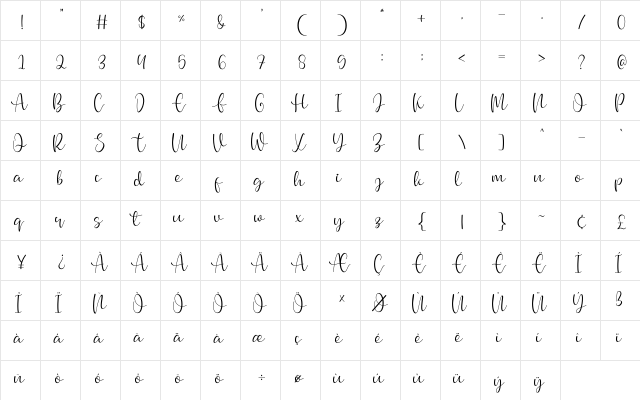
Buttey Honey Regular
| Designer | Rayvaldo Rizki Pratama Augusta |
Design Context for Buttey Honey Typeface
Buttey Honey is a composed and adaptable typeface that performs quietly and consistently across a wide range of design contexts.